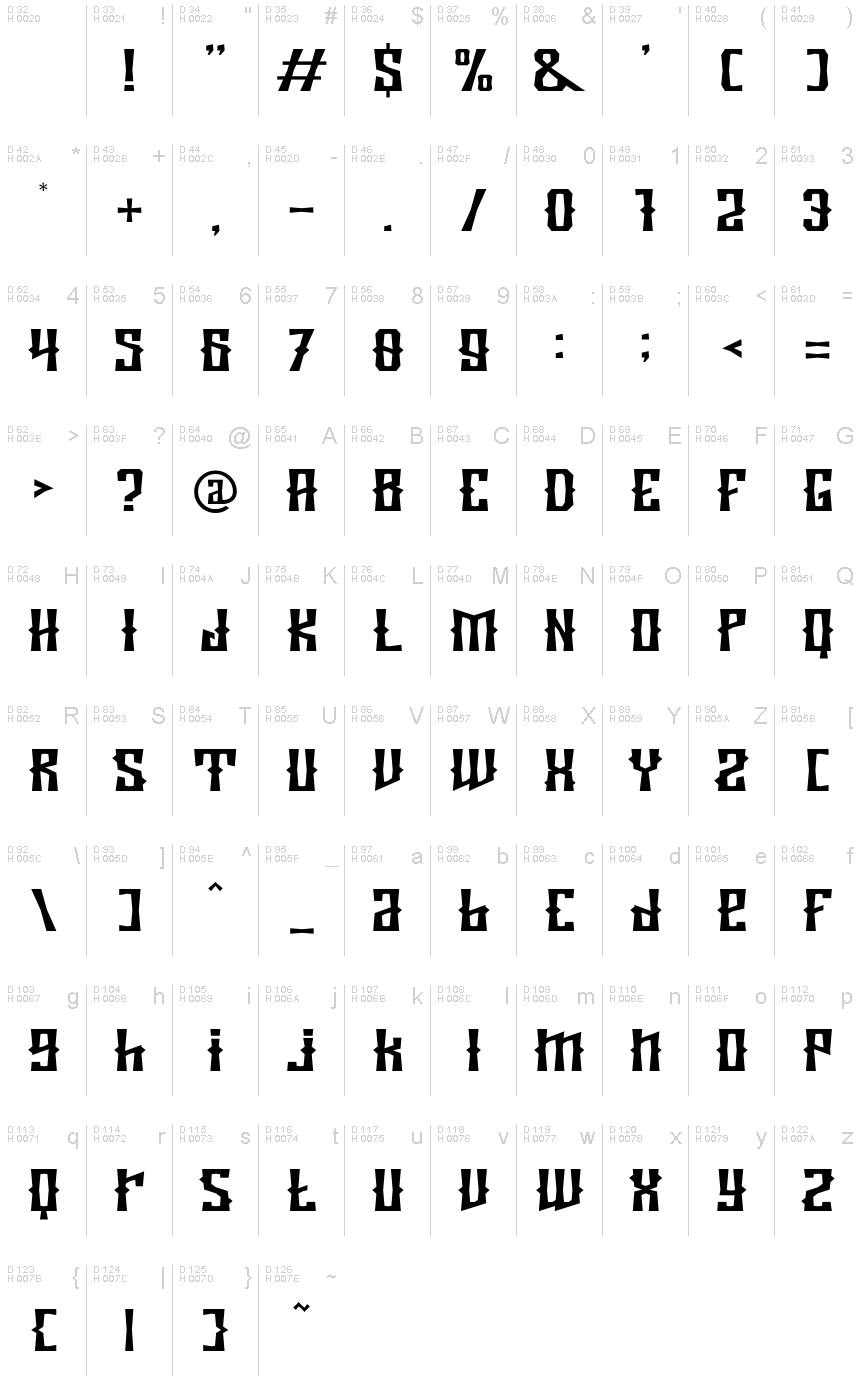
Wooden Bridge
Wooden Bridge, a captivating display font crafted by PutraCetol Studio, exudes a distinct retro-inspired charm. This condensed typeface boasts a rustic, hand-drawn aesthetic, with each letter emanating a sense of weathered elegance. The bold, angular strokes and subtle texture evoke the rugged character of a wooden bridge, inviting the viewer on a visually captivating journey through time and space.
This versatile font lends itself well to a variety of design applications, from vintage-inspired branding and packaging to eye-catching headlines and impactful typographic compositions. Its condensed width makes it an ideal choice for projects where space is limited, while its bold, attention-grabbing presence ensures that your message stands out in any setting.